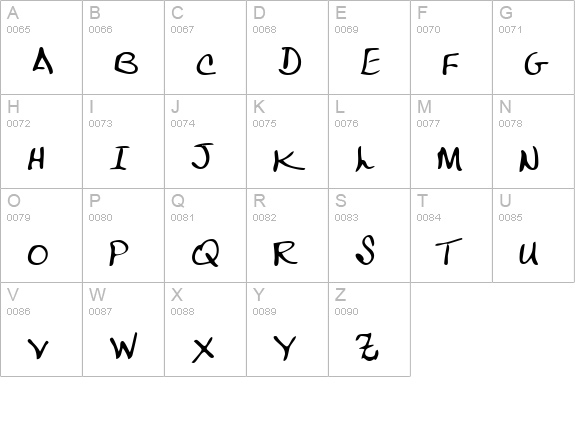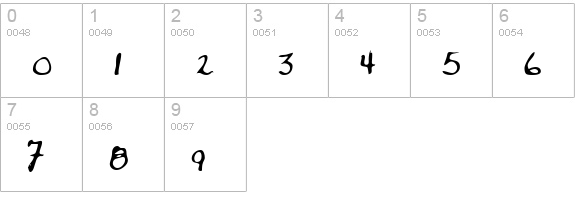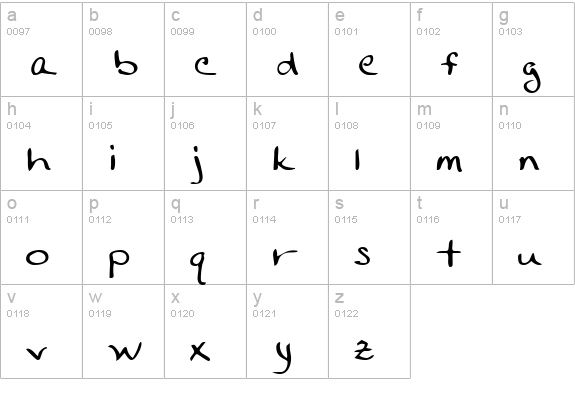
RoslinsHand Regular is the standard, neutral variant in the RoslinsHand typeface family \xE2\x80\x94 well suited to general body text, paragraphs, and standard typographic work.
RoslinsHand Regular font is a charming and elegant typeface, perfect for adding a touch of sophistication to your designs. With its graceful curves and smooth lines, this font exudes a sense of grace and style. Whether you're creating wedding invitations, branding materials, or social media graphics, RoslinsHand Regular is sure to make a statement. What's even better is that RoslinsHand Regular font is available for free download at FontsMarket.com. This means you can easily access this stunning typeface without any cost, making it a valuable addition to your font collection. Don't miss out on the opportunity to elevate your designs with the timeless beauty of RoslinsHand Regular font. Download it today and let your creativity soar.